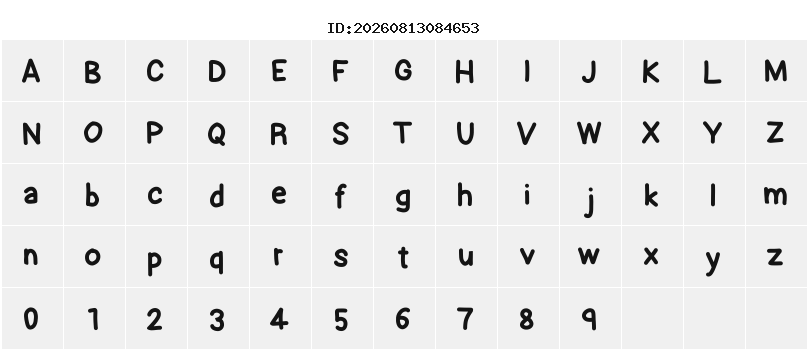
Remember Preview
• Font Name: Remember
• Full Font Name: Remember
• PostScript Name: Remember
About Remember.ttf
Remember.ttf is a modern, elegant sans-serif font designed for ultimate readability and visual harmony. Perfect for branding, headlines, web design, and print materials.